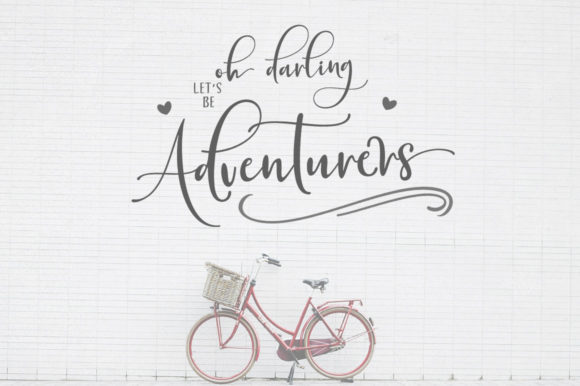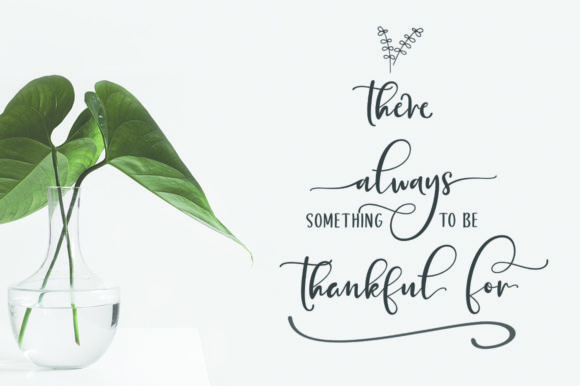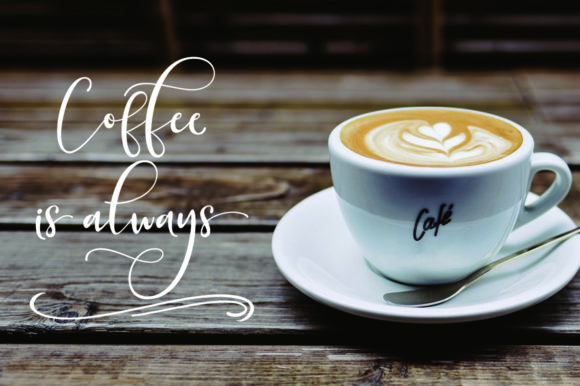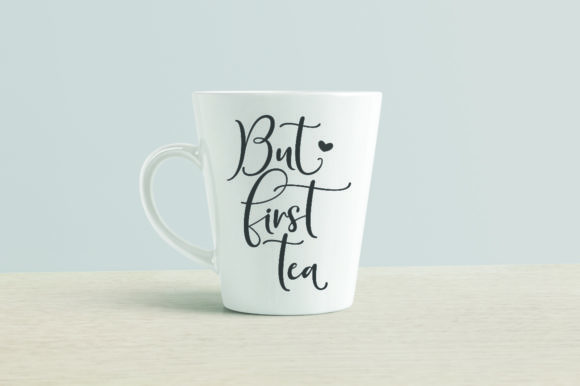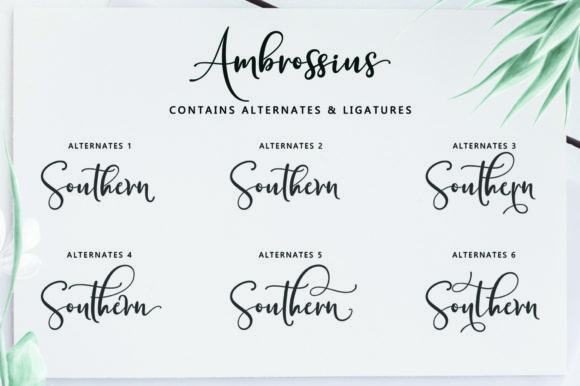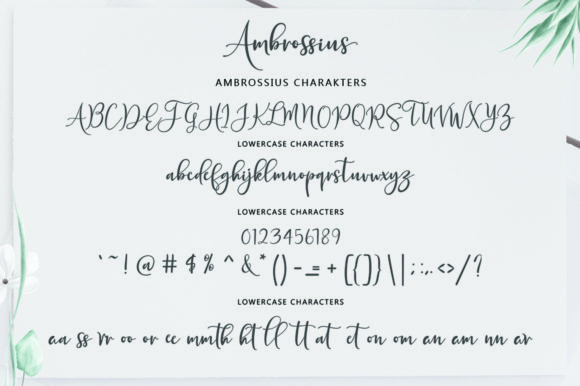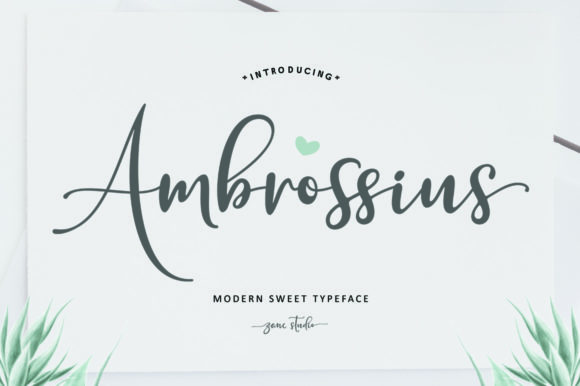
Introducing Ambrossius Script Font: Elevate Your Designs with a Touch of Classic Elegance
Are you tired of using the same old fonts for your design projects? Do you want to add a touch of uniqueness and personality to your creations? Look no further than Ambrossius Script Font, a classic crafting font that’s sure to make your designs stand out from the crowd. In this article, we’ll dive into the world of Ambrossius, exploring its features, benefits, and uses, as well as provide tips and inspiration for incorporating it into your design workflow.
A Classic Crafting Font with a Unique Twist
Ambrossius Script Font is a fun and cool handwritten font that’s perfect for crafters, designers, and anyone looking to add a personal touch to their projects. With its classic elegance and unique twist, Ambrossius is ideal for a wide range of design applications, from invitations and greeting cards to branding and packaging.
One of the standout features of Ambrossius is its distinctive lettering style, which combines traditional craftsmanship with a modern, playful edge. The font’s intricate swashes and flourishes add a touch of sophistication and whimsy, making it perfect for designs that require a bit of flair.
Key Features of Ambrossius Script Font
- Unique Handwritten Style: Ambrossius boasts a one-of-a-kind handwritten style that’s both elegant and playful.
- Intricate Swashes and Flourishes: The font’s intricate swashes and flourishes add a touch of sophistication and whimsy to your designs.
- Classic Elegance: Ambrossius combines traditional craftsmanship with a modern edge, making it perfect for a wide range of design applications.
- Highly Versatile: Use Ambrossius for invitations, greeting cards, branding, packaging, and more.
Benefits of Using Ambrossius Script Font
So why choose Ambrossius Script Font for your design projects? Here are just a few benefits of using this amazing font:
- Adds Personality to Your Designs: Ambrossius is a font that’s full of personality, making it perfect for designers who want to add a touch of whimsy and elegance to their creations.
- Stand Out from the Crowd: With its unique lettering style and intricate swashes, Ambrossius is sure to make your designs stand out from the crowd.
- Perfect for Crafters and Designers: Ambrossius is a font that’s specifically designed with crafters and designers in mind, making it perfect for a wide range of design applications.
Tips for Using Ambrossius Script Font
Ready to start using Ambrossius Script Font in your design projects? Here are a few tips to get you started:
- Pair with Other Fonts: Ambrossius pairs perfectly with other fonts, so don’t be afraid to experiment with different combinations.
- Use for Headings and Titles: Ambrossius is perfect for headings and titles, where its elegant lettering style can really shine.
- Add Swashes and Flourishes: Don’t be afraid to add swashes and flourishes to your text to give it an extra touch of elegance and whimsy.
Inspiration for Your Next Design Project
Still looking for inspiration for your next design project? Here are a few ideas to get you started:
- Create a Handmade Invitation: Use Ambrossius to create a beautiful handmade invitation for a special occasion.
- Design a Set of Greeting Cards: Ambrossius is perfect for designing a set of greeting cards that are sure to stand out.
- Develop a Brand Identity: Use Ambrossius to develop a brand identity that’s both elegant and playful.
In conclusion, Ambrossius Script Font is a classic crafting font that’s sure to elevate your designs to the next level. With its unique lettering style, intricate swashes, and classic elegance, Ambrossius is the perfect choice for crafters, designers, and anyone looking to add a personal touch to their projects. So why wait? Download Ambrossius today and start creating designs that truly stand out!